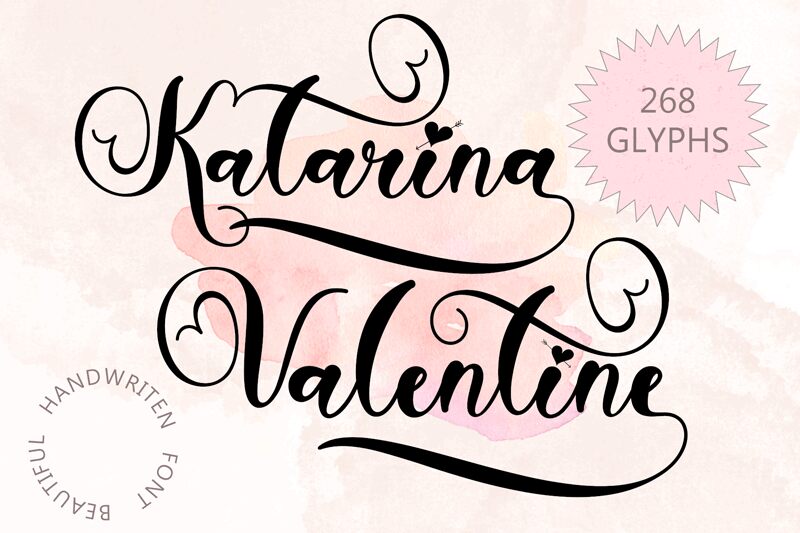
Katarina Valentine font designed by Yoga Letter is a beautiful font with elegant, smooth letters. This free font brings a romantic vibe to the projects it’s used in making it a very useful addition for designers to use for wedding or engagement-related tasks. Its holiday style, with its swashes, allow for a modern yet sophisticated appearance.
Its decorative aspect makes it highly friendly and engaging as it reminds us of the flowing letters of handwriting. Use it for greeting cards and covers, book title designs, branding designs for cosmetics or fashion, packaging designs, or social media posts. Katarina Valentine can be used for invitations or even in videos that require a font that doesn’t overpower the presented content, just like the font used for the intro of a cooking channel.